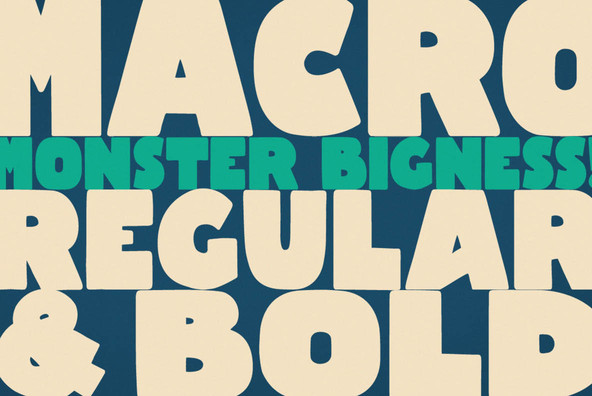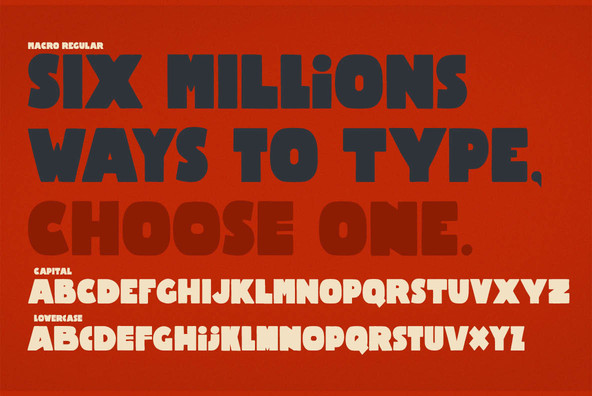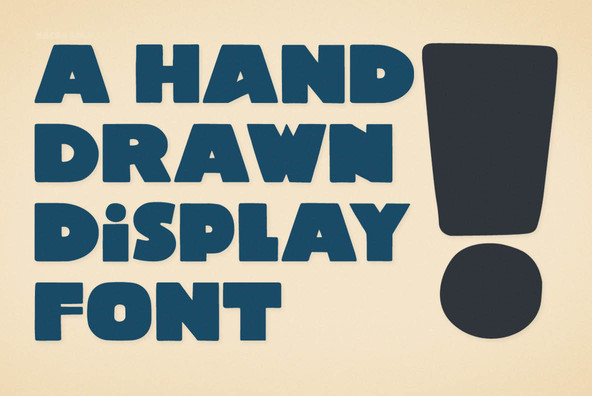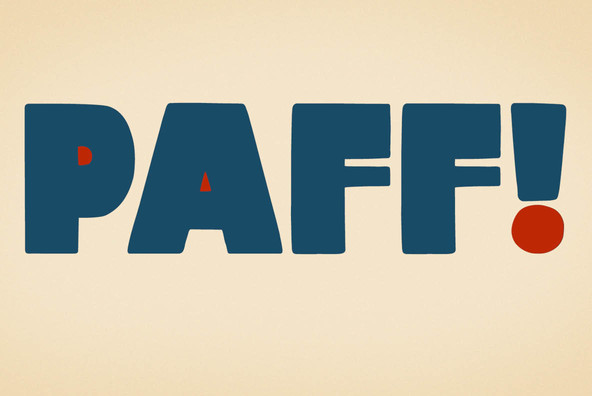
Macro is a hand-drawn display font available in a regular and a bold version. Both versions come with double upper cases.
Macro is a hand-drawn display font available in a regular and a bold version. Both versions come with double upper cases. Prepare to make a monstrous statement!